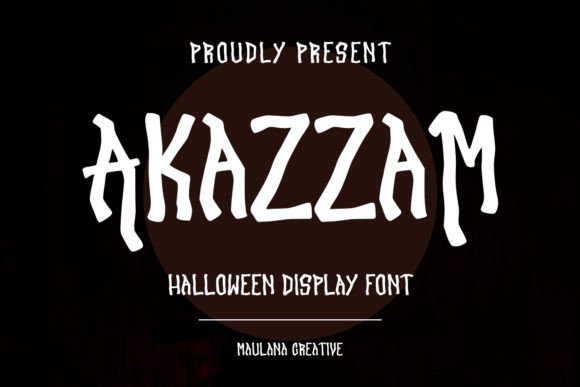
Unleash the Spook: Discover the Akazzam Font for Your Haunted Projects
Are you a designer or crafter looking for the perfect font to add a spine-tingling touch to your haunted house invitations, Halloween midnight movie posters, or event headings? Look no further than the Akazzam Font, a design element that embodies the eerie ambiance of horror. This font is specifically crafted to bring a bone-chilling feel to your projects, making it an ideal choice for those who dare to create the unconventional.
The Perfect Font for Haunted Houses and Halloween Events
The Akazzam Font is designed to evoke the spirit of Halloween, with a haunting style that sends shivers down the spine. Whether you’re creating invitations for a spooky soiree, designing posters for a midnight horror movie screening, or crafting headings for a haunted house event, this font is sure to set the tone for a chilling experience. Its unique design elements are carefully crafted to create an eerie atmosphere that will leave your audience trembling with anticipation.
One of the standout features of the Akazzam Font is its PUA (Private Use Area) encoding. This means that you can easily access all the amazing glyphs and ligatures that make this font so special. With PUA encoding, you can unlock a world of creative possibilities, from intricate designs to elaborate flourishes. Whether you’re a seasoned designer or a crafty DIY enthusiast, the Akazzam Font’s PUA encoding makes it easy to get the most out of your creative projects.
The Akazzam Font is more than just a design element – it’s a key to unlocking a world of creative possibilities. With its haunting style and PUA encoding, this font can be used in a wide range of projects, from:
- Haunted house invitations and event headings
- Halloween midnight movie posters and flyers
- Spooky soiree invitations and party decorations
- Eerie event branding and marketing materials
- Creepy crafts and DIY projects
Why Choose the Akazzam Font?
So why choose the Akazzam Font for your haunted projects? Here are just a few reasons:
- Unique and eye-catching design: The Akazzam Font is unlike any other font on the market, with a haunting style that’s sure to grab attention.
- PUA encoded for easy access: With PUA encoding, you can easily access all the glyphs and ligatures you need to create stunning designs.
- Versatile and adaptable: The Akazzam Font can be used in a wide range of projects, from invitations and posters to crafts and DIY projects.
- Perfect for Halloween and haunted events: This font is specifically designed for haunted houses, Halloween events, and other spooky projects.
Get Ready to Cast a Spell with the Akazzam Font
If you’re looking for a font that will add a touch of horror to your projects, look no further than the Akazzam Font. With its haunting style, PUA encoding, and endless creative possibilities, this font is sure to become your go-to choice for haunted houses, Halloween events, and other spooky projects. So why wait? Get ready to cast a spell with the Akazzam Font and unleash your creativity on the world!